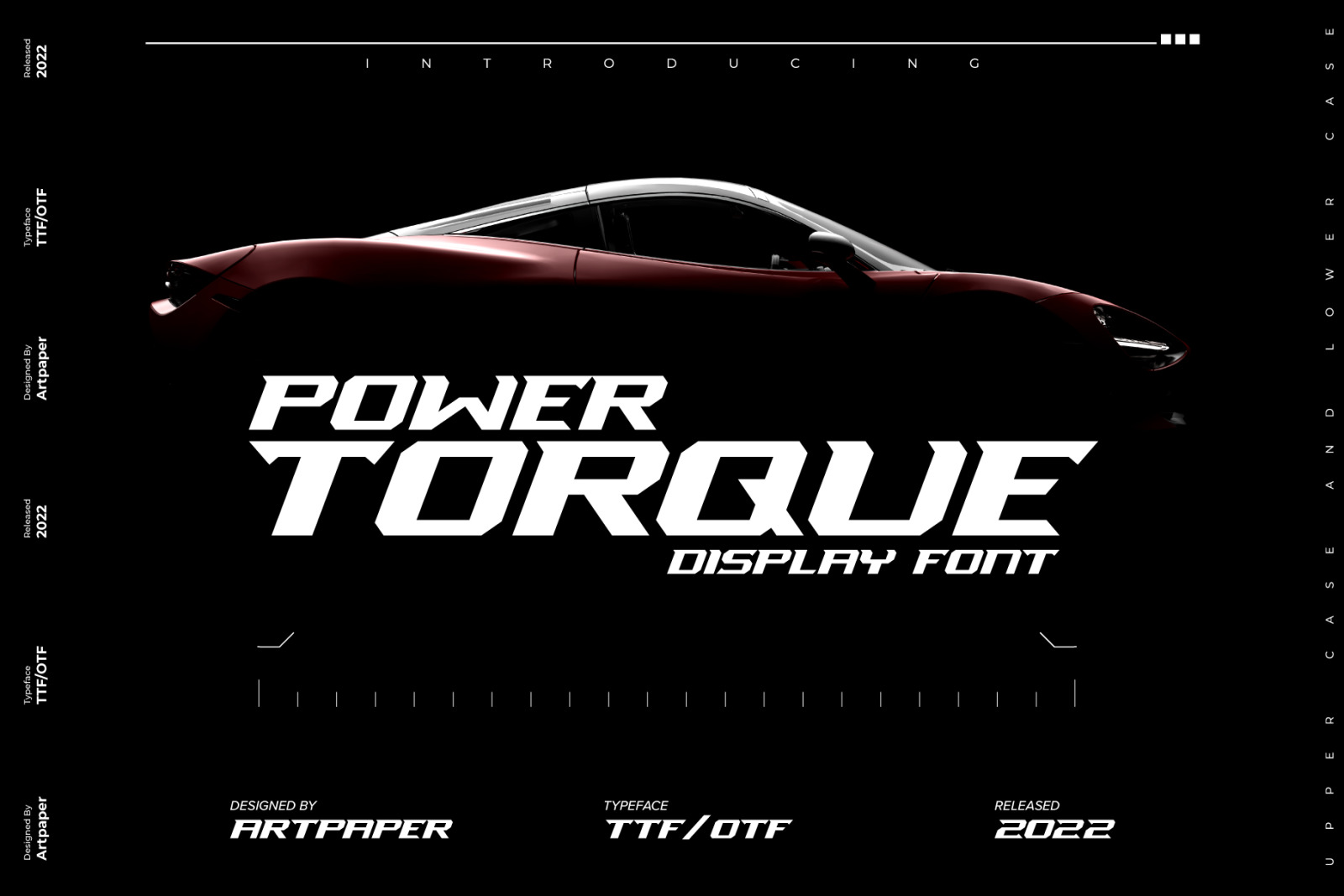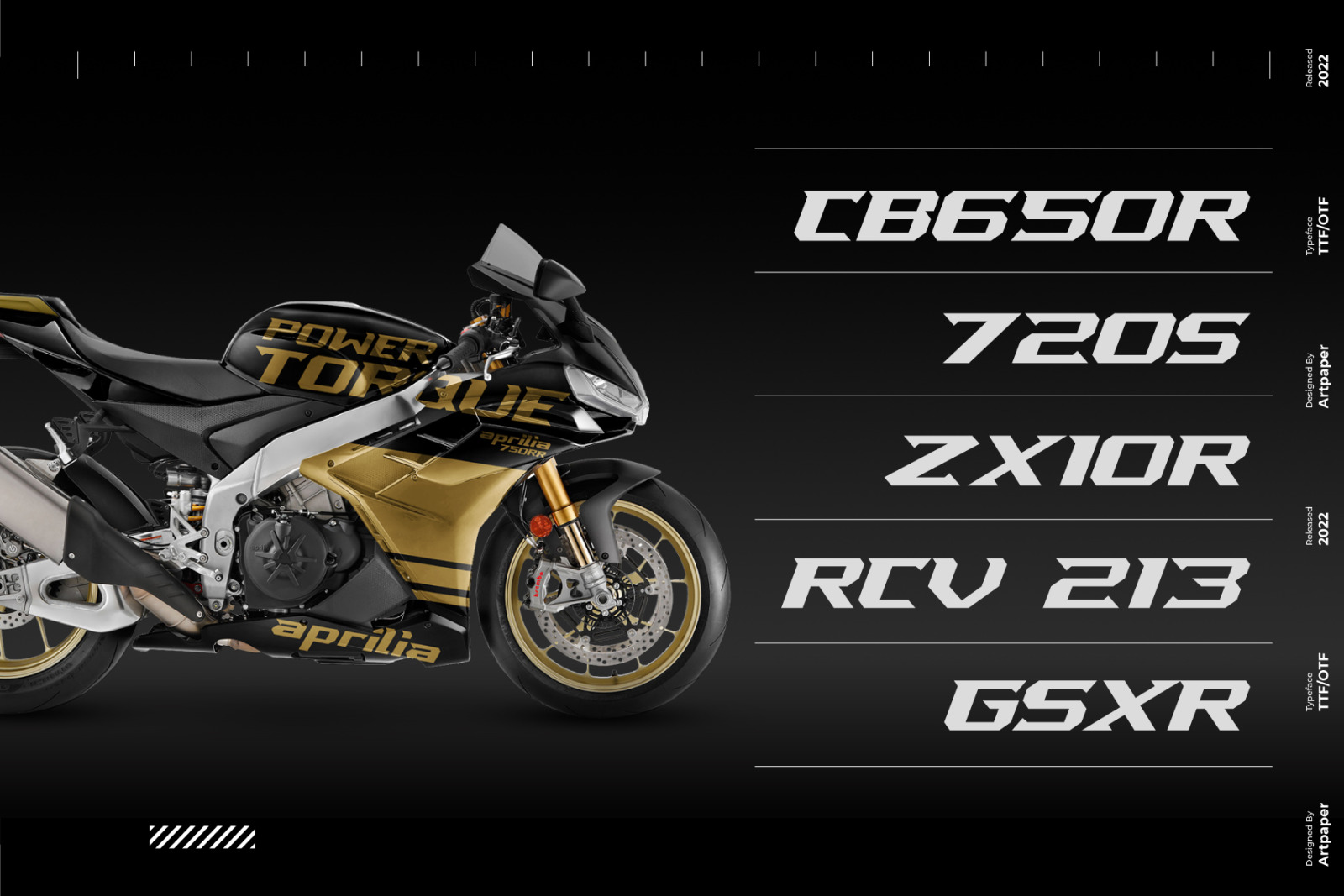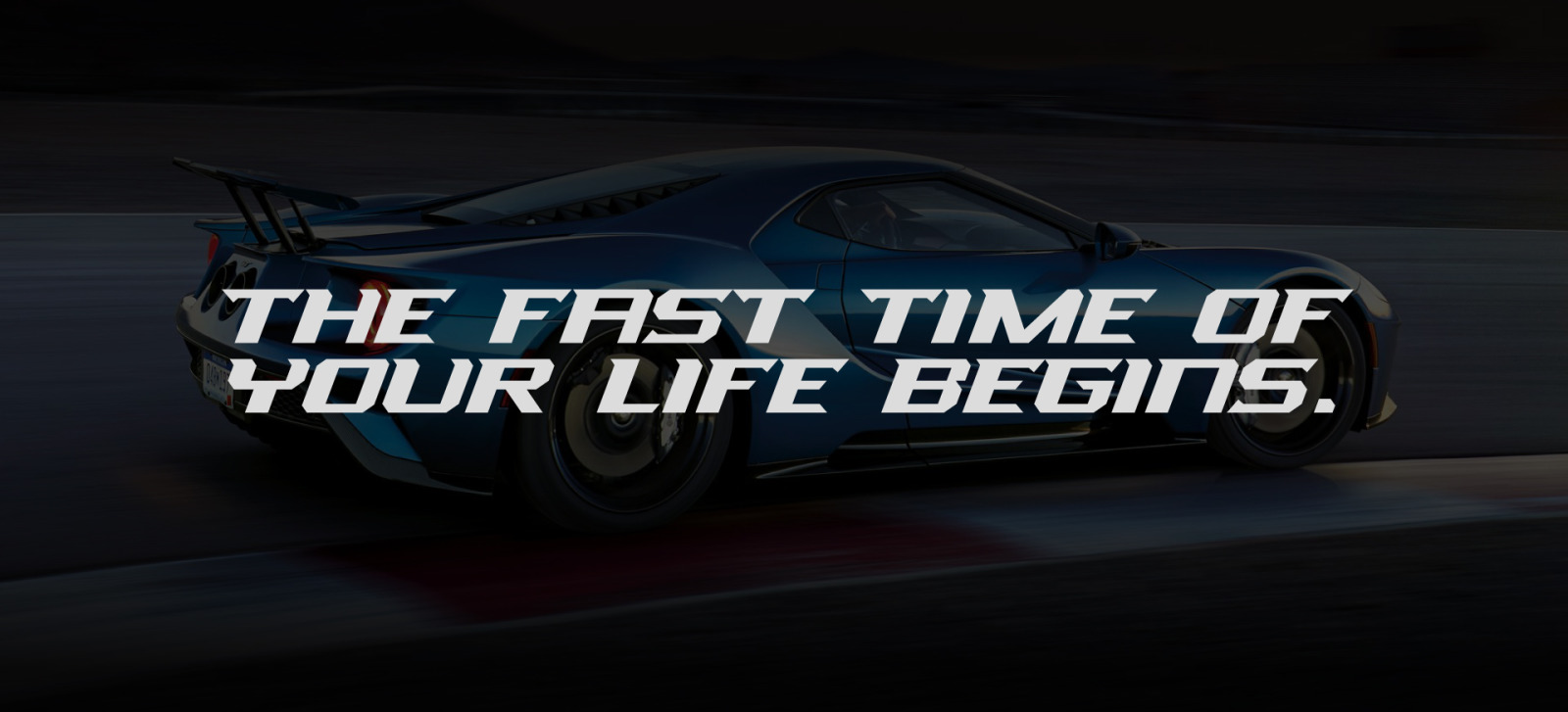
POWER TORQUE Sport Racing Typeface
POWER TORQUE is unique Racing and Sport type font design. this font suitable for modern, game, racing, street themes, hypebeast, trendy, etc. use this font for your cool design project.